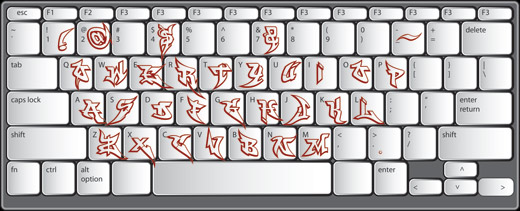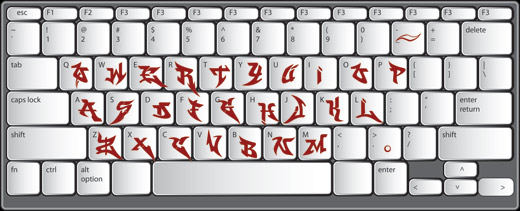
WildStyle Basic ™
EXCLUSIVE! - All new Graffiti Font™
WildStyle basic is a simpler version of our WildStyle™ font with outlined letters on the capital keys & filled letters on the lowercase keys. This font also includes several symbols & foriegn language characters.
The WildStyle Basic™ font consists of different letters than the full WildStyle ™ font family however the size of the glyphs & the width of the outline are the same so that this font can be used along with the original WildStyle™ family.